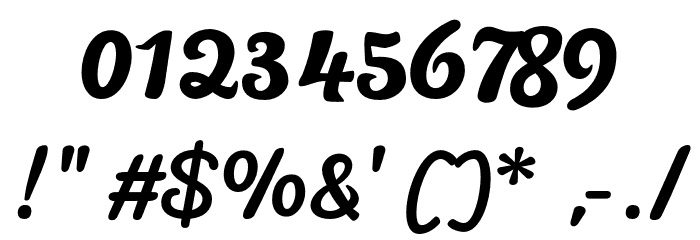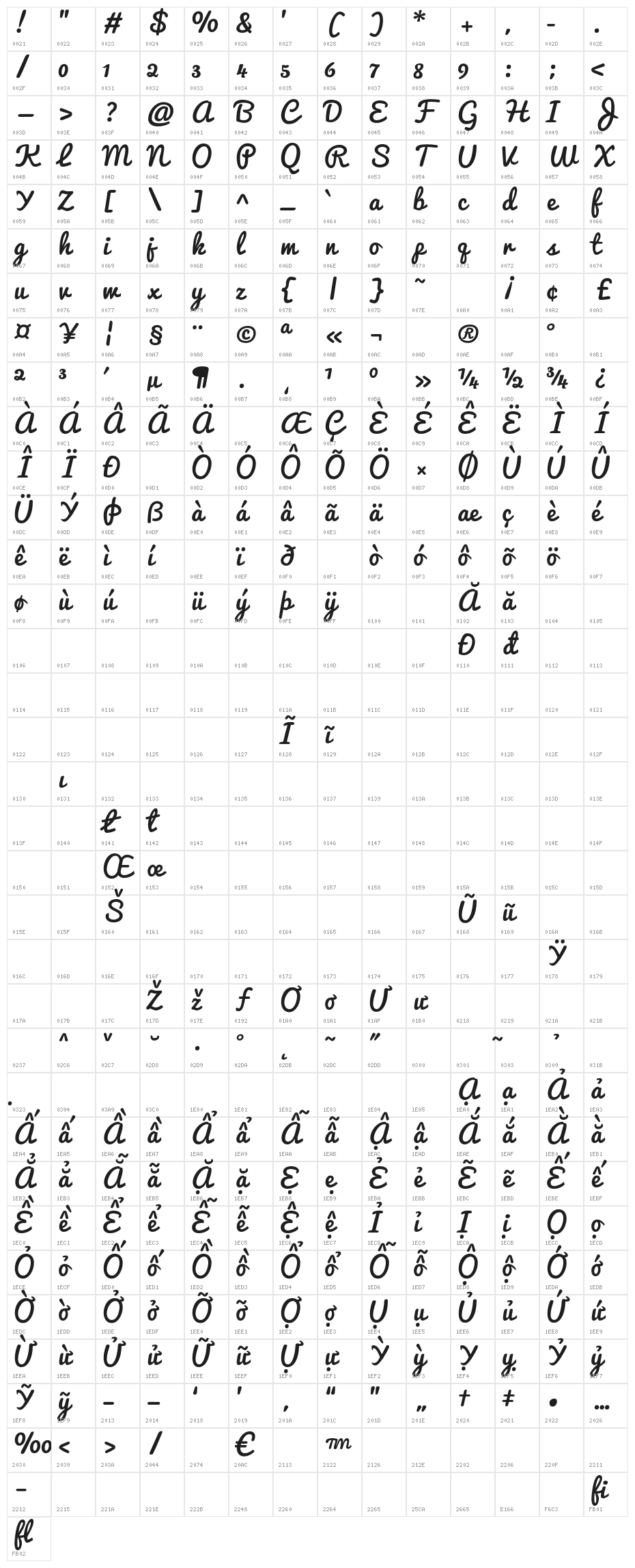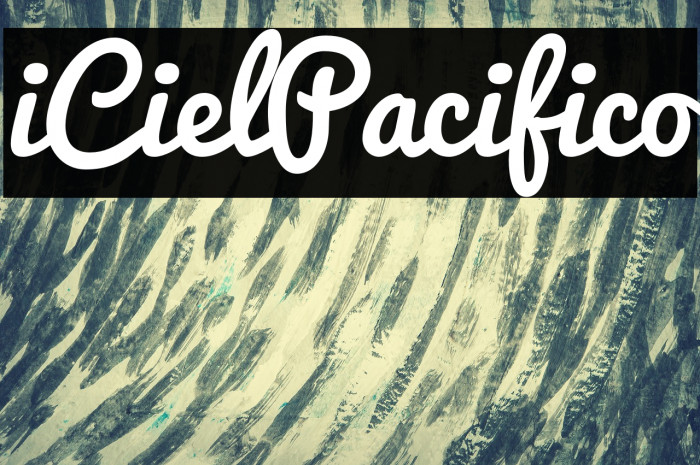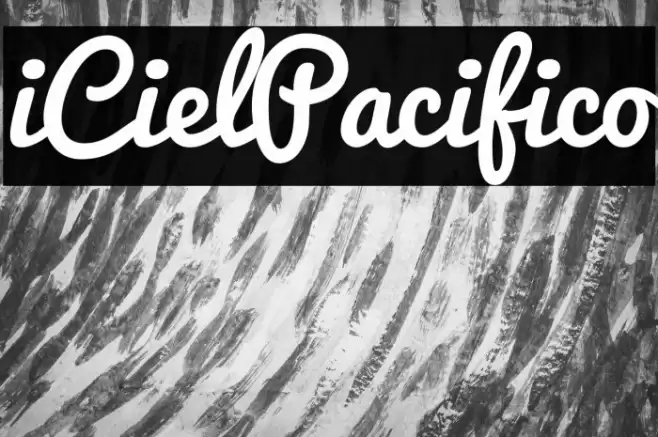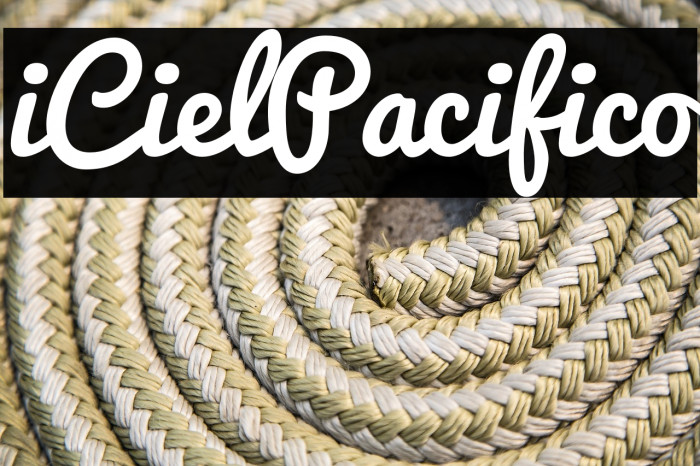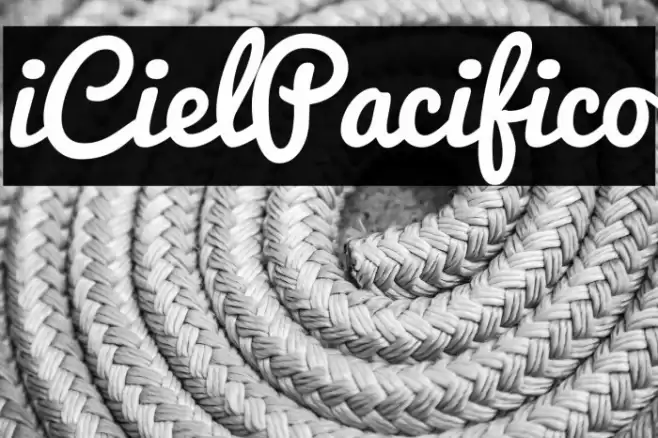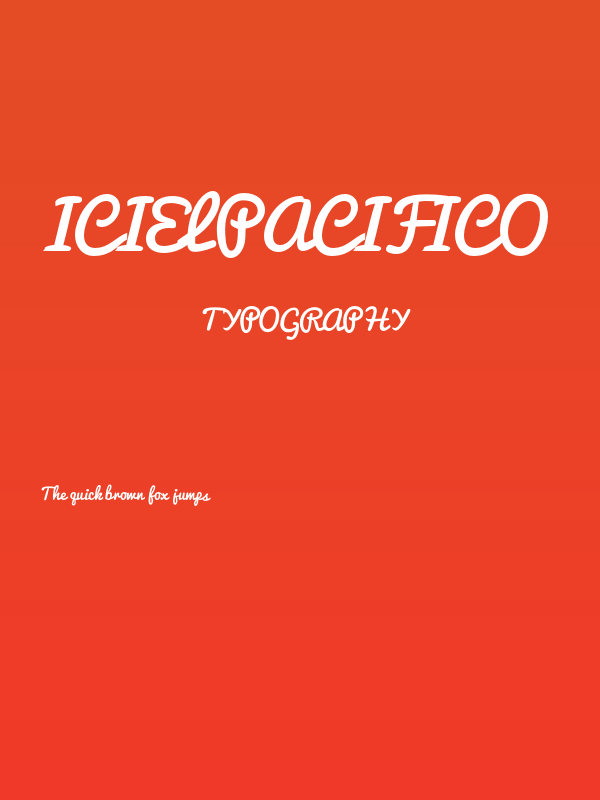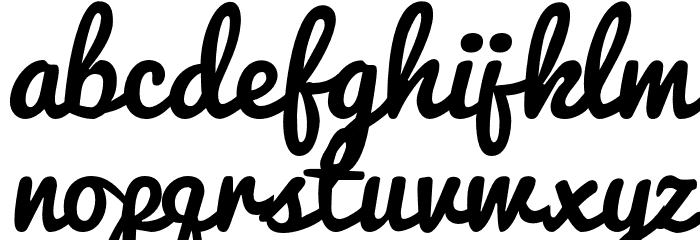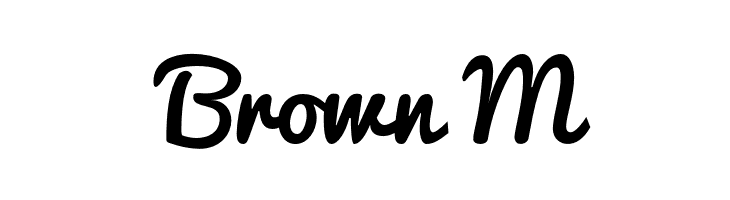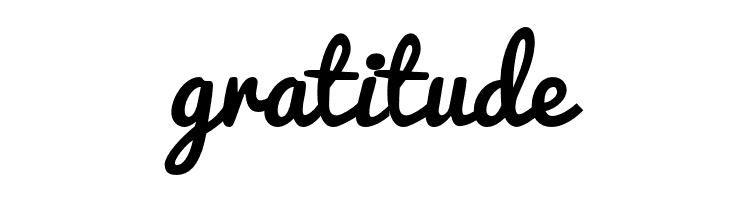
iCielPacifico Font
iCielPacifico Description
This font features a flowing, cursive style that exudes a sense of elegance and fluidity. The letters are connected, creating a seamless and harmonious appearance. The strokes are bold and consistent, providing a strong visual impact. The uppercase letters are slightly larger and more pronounced, while the lowercase letters maintain a uniform height, enhancing readability. The numerals are distinct and match the overall style, ensuring cohesion across different types of content. Special characters are well-integrated, maintaining the font's cohesive look.
| Proposed Projects | Ideal for wedding invitations, greeting cards, branding projects, and elegant signage. |